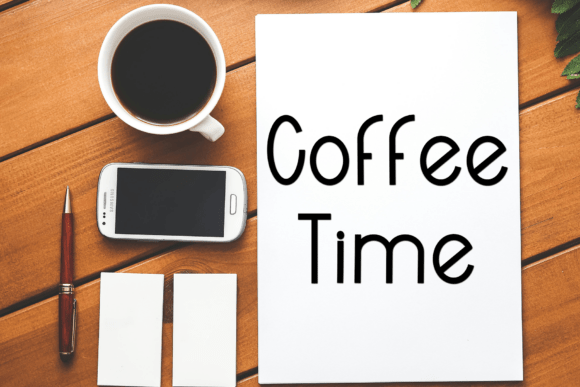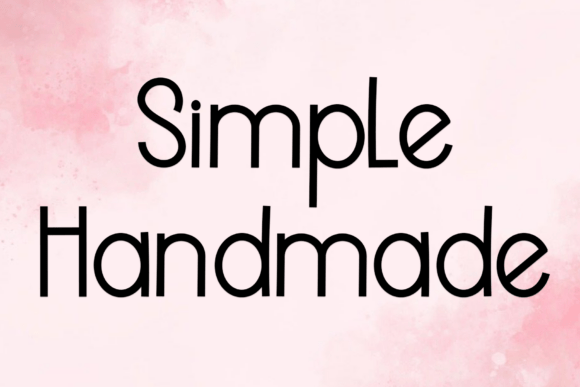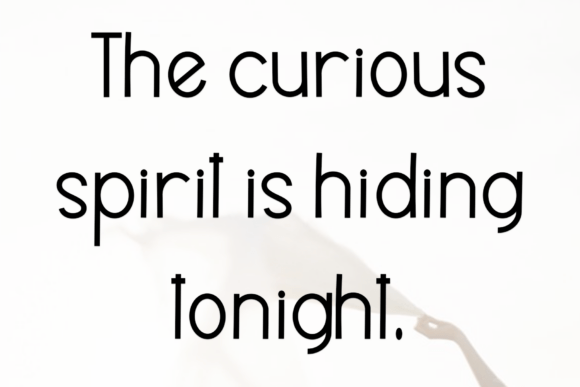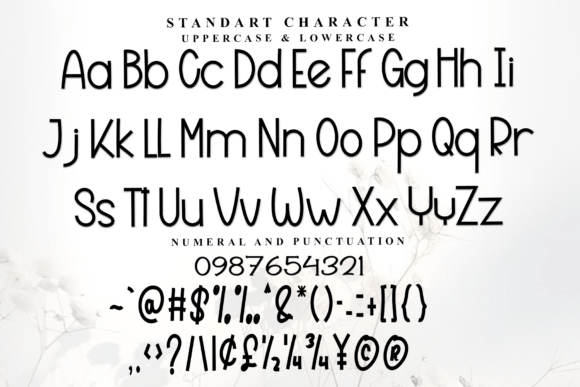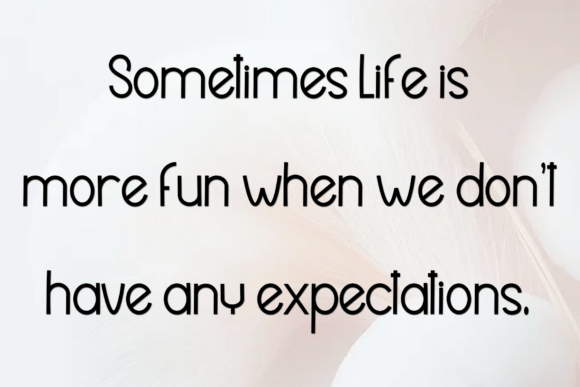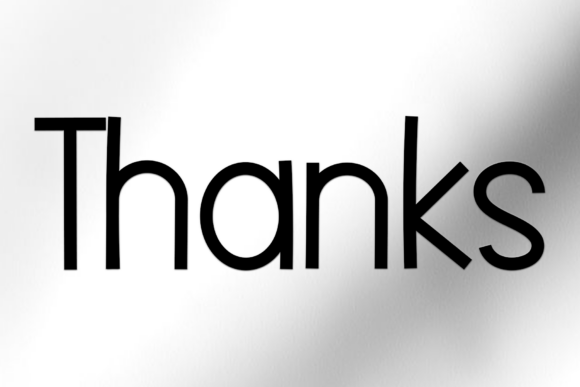
Introducing Beach Mango Font: The Perfect Typeface for Tropical Branding and Summer Campaigns
Are you looking for a font that captures the essence of a tropical paradise? Look no further than Beach Mango Font, a fresh and modern sans serif typeface that’s perfect for travel blogs, summer campaigns, and branding projects that require a breezy, minimal style. With its rounded clean form, Beach Mango evokes the feeling of fun under the sun, making it an ideal choice for designers and crafters who want to add a touch of warmth and playfulness to their work.
What Makes Beach Mango Font So Special?
Beach Mango Font is a unique and stylish typeface that’s designed to evoke the carefree spirit of a tropical getaway. Its clean and minimalist design makes it perfect for use in a variety of applications, from travel blogs and summer campaigns to branding and advertising projects. The font’s rounded form gives it a friendly and approachable feel, making it perfect for projects that require a warm and inviting tone.
Key Features of Beach Mango Font
- Fresh and Modern Design: Beach Mango Font features a fresh and modern sans serif design that’s perfect for projects that require a clean and minimalist look.
- Breezy and Minimal Style: The font’s breezy and minimal style makes it perfect for travel blogs, summer campaigns, and branding projects that require a light and airy feel.
- Rounded Clean Form: The font’s rounded clean form gives it a friendly and approachable feel, making it perfect for projects that require a warm and inviting tone.
- Perfect for Tropical Branding: Beach Mango Font is perfect for tropical branding projects, including travel blogs, resort websites, and summer campaigns.
How to Use Beach Mango Font in Your Design Projects
Beach Mango Font is a versatile typeface that can be used in a variety of design projects, from print to digital. Here are a few ways you can use Beach Mango Font in your design projects:
- Travel Blogs: Use Beach Mango Font to create a travel blog that’s fun, modern, and inviting.
- Summer Campaigns: Use Beach Mango Font to create eye-catching summer campaigns that evoke the feeling of fun under the sun.
- Tropical Branding: Use Beach Mango Font to create a tropical brand identity that’s fresh, modern, and stylish.
- Advertising Projects: Use Beach Mango Font to create advertising projects that require a clean, minimalist look and a warm, inviting tone.
Why Designers and Crafters Love Beach Mango Font
Designers and crafters love Beach Mango Font for its unique and stylish design, versatility, and ease of use. Here are a few reasons why:
- Unique and Stylish Design: Beach Mango Font features a unique and stylish design that’s perfect for designers and crafters who want to add a touch of warmth and playfulness to their work.
- Versatility: Beach Mango Font is a versatile typeface that can be used in a variety of design projects, from print to digital.
- Ease of Use: Beach Mango Font is easy to use and can be easily integrated into design projects.
Beach Mango Font is a fresh and modern sans serif typeface that’s perfect for tropical branding, travel blogs, summer campaigns, and design projects that require a breezy, minimal style. With its rounded clean form and friendly feel, Beach Mango Font is an ideal choice for designers and crafters who want to add a touch of warmth and playfulness to their work. So why wait? Download Beach Mango Font today and start creating your own tropical-inspired design projects!